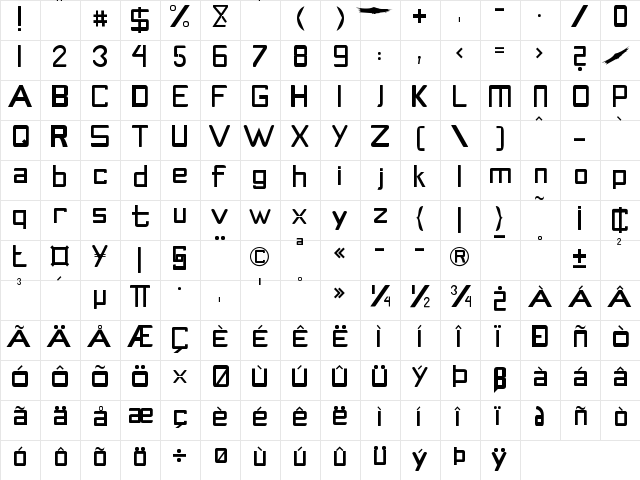
Star Patrol Regular
Design Context for Star Patrol Typeface
Star Patrol offers clean, dependable letterforms without strong stylistic allegiance, making it a practical choice for designers who need flexibility.